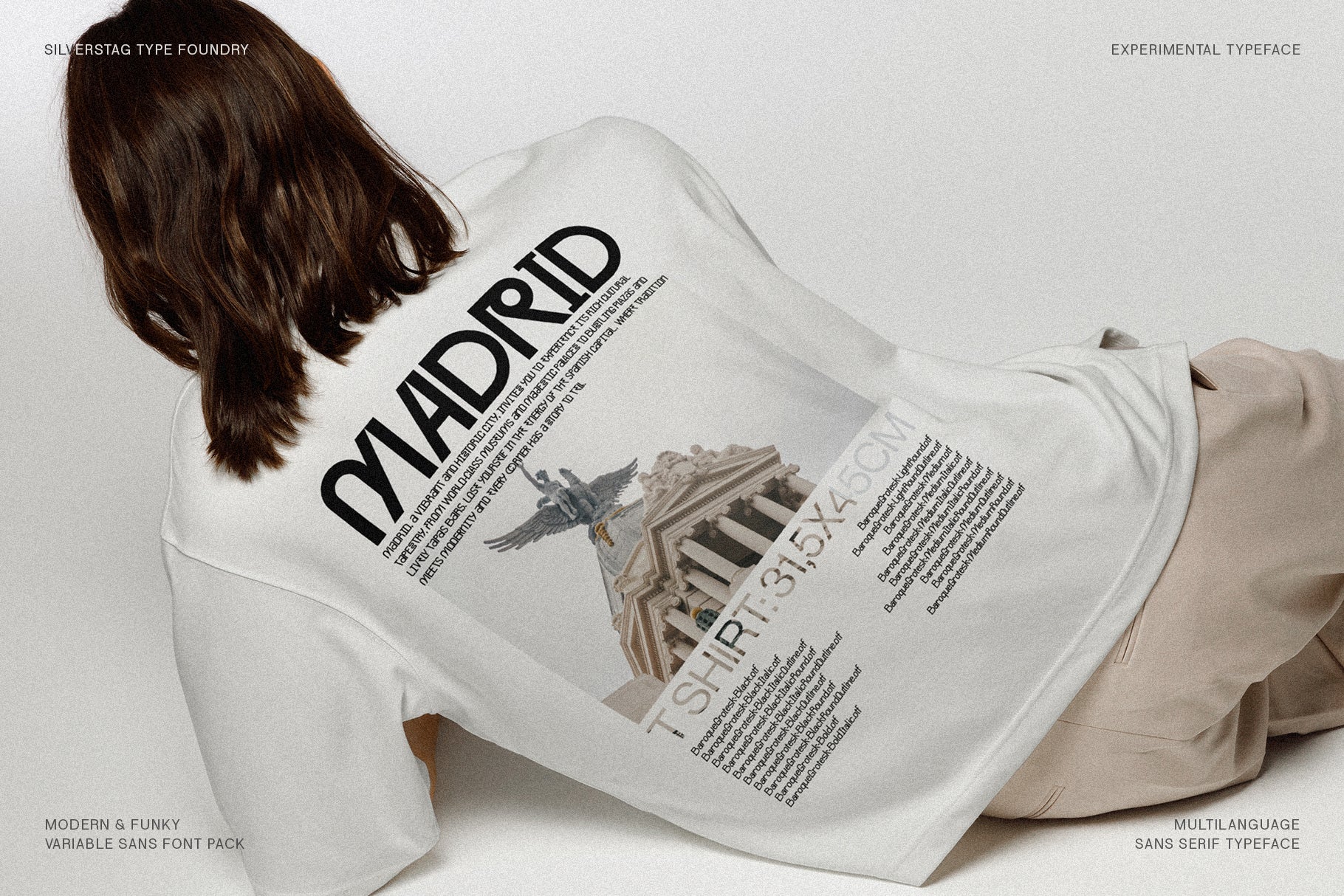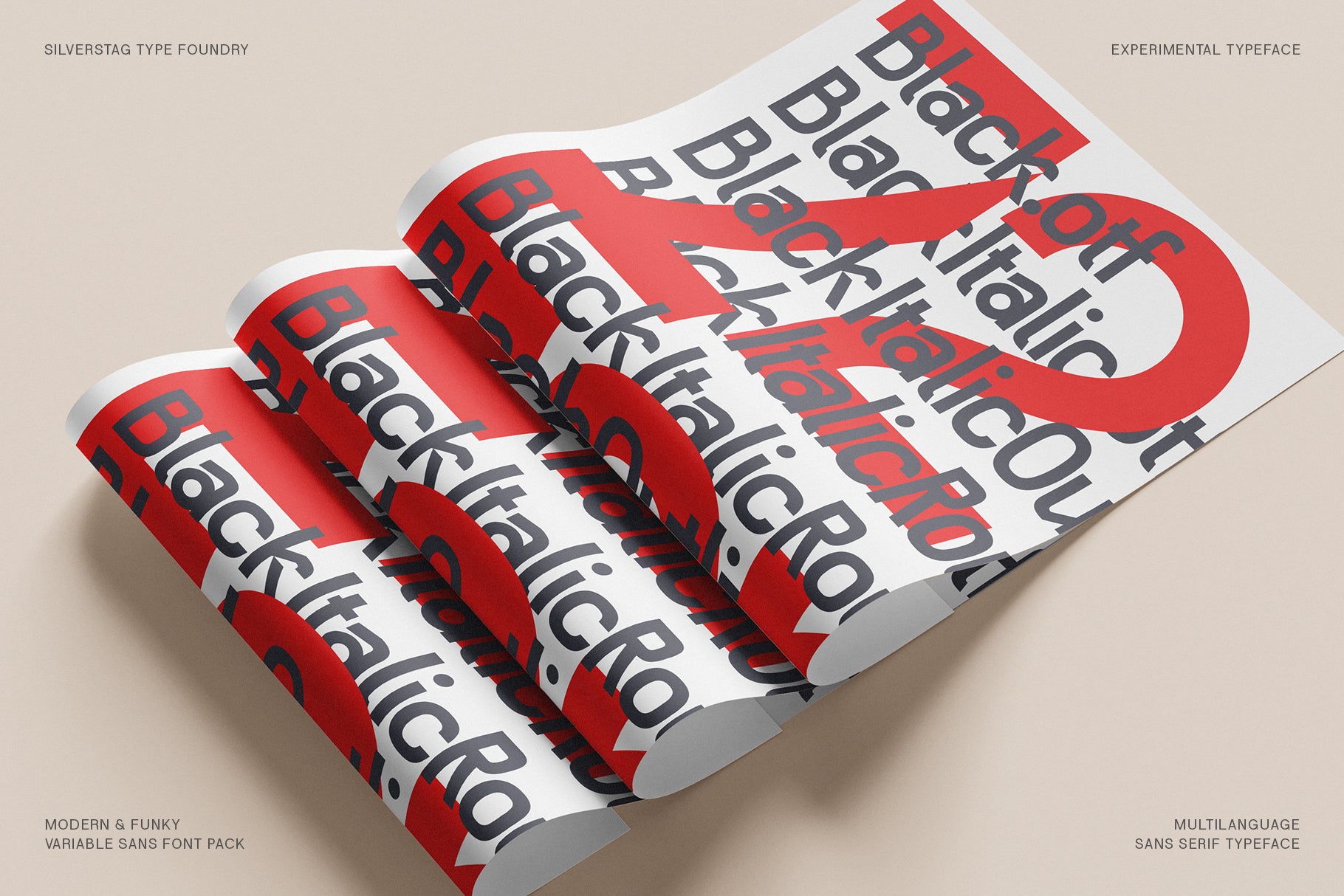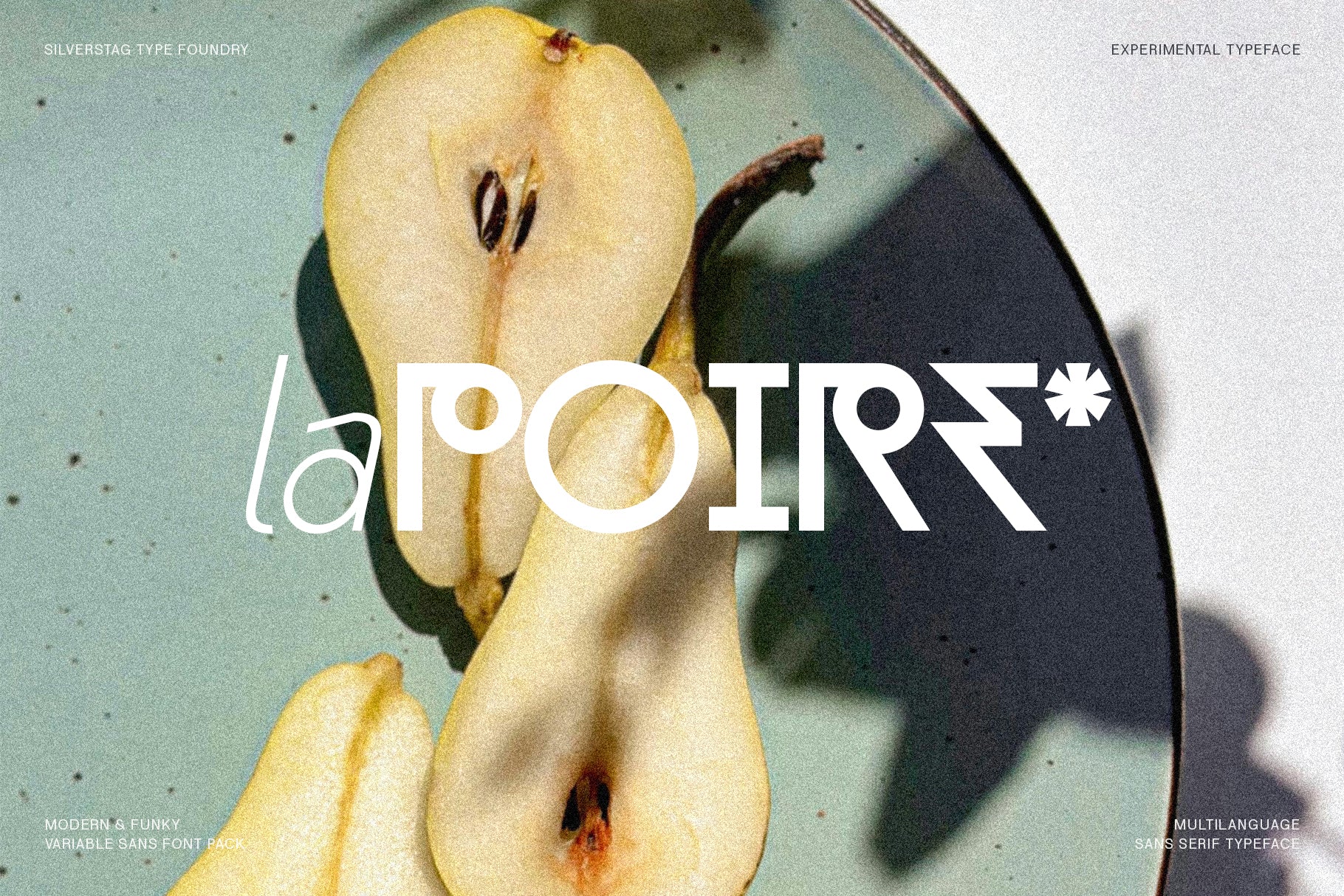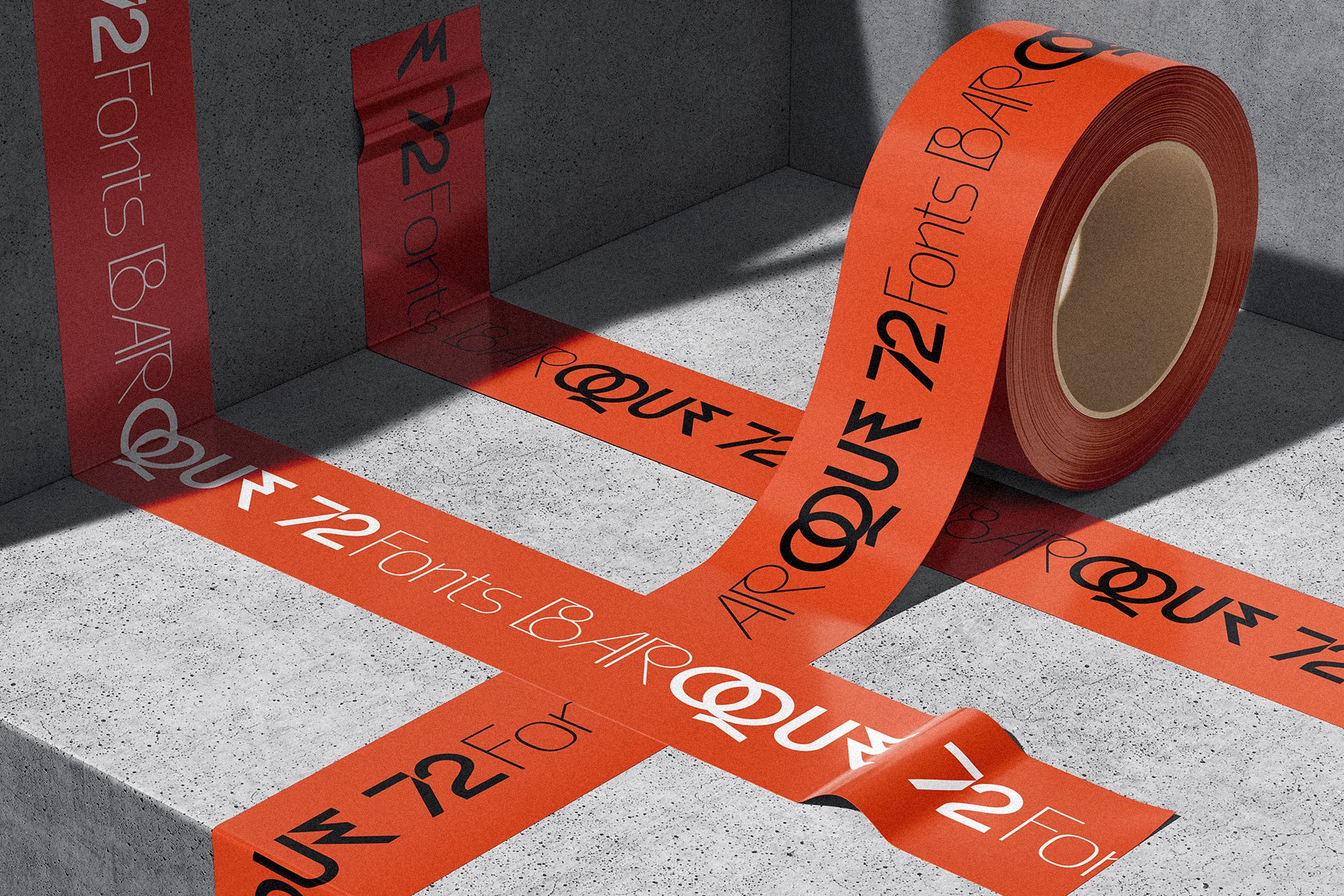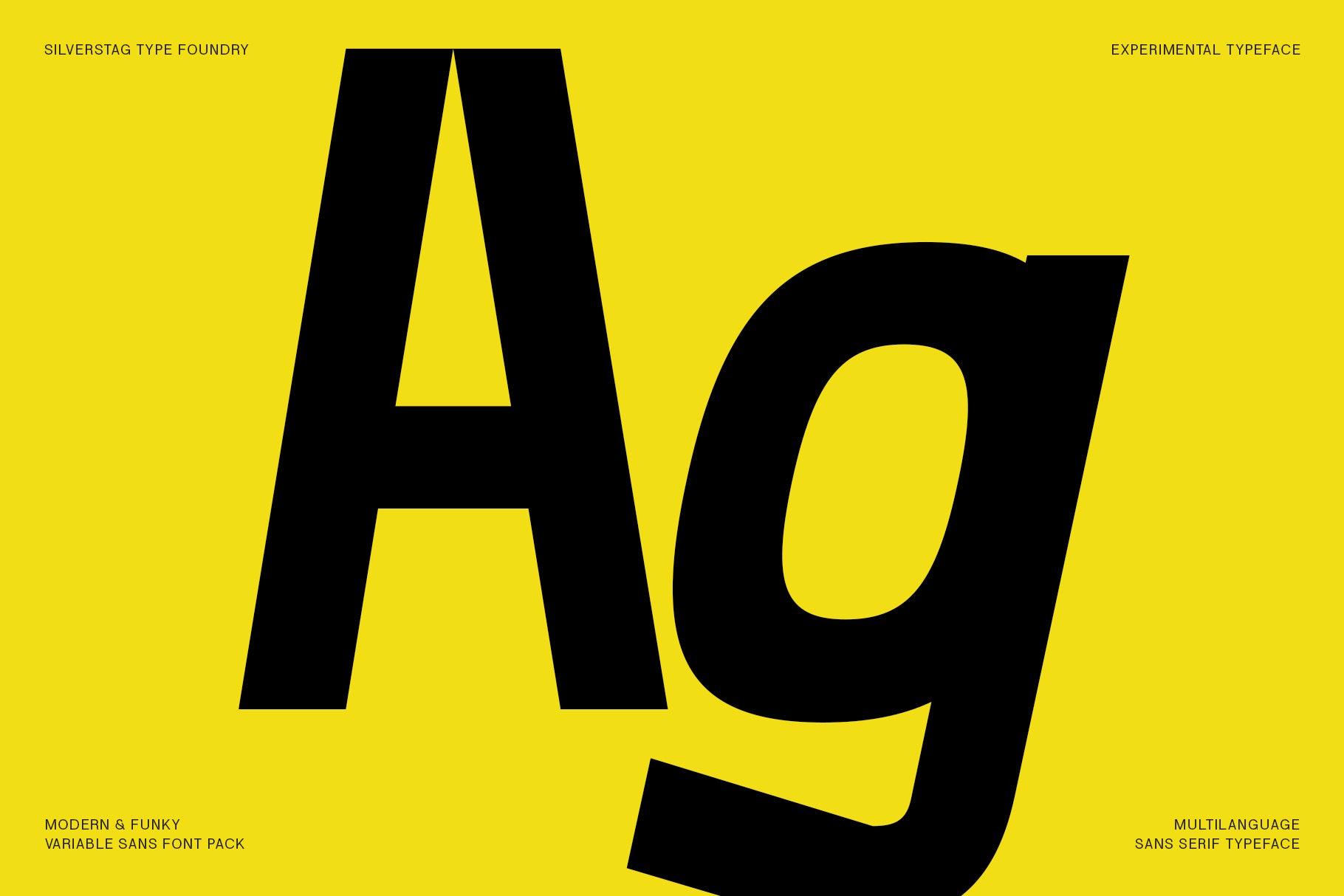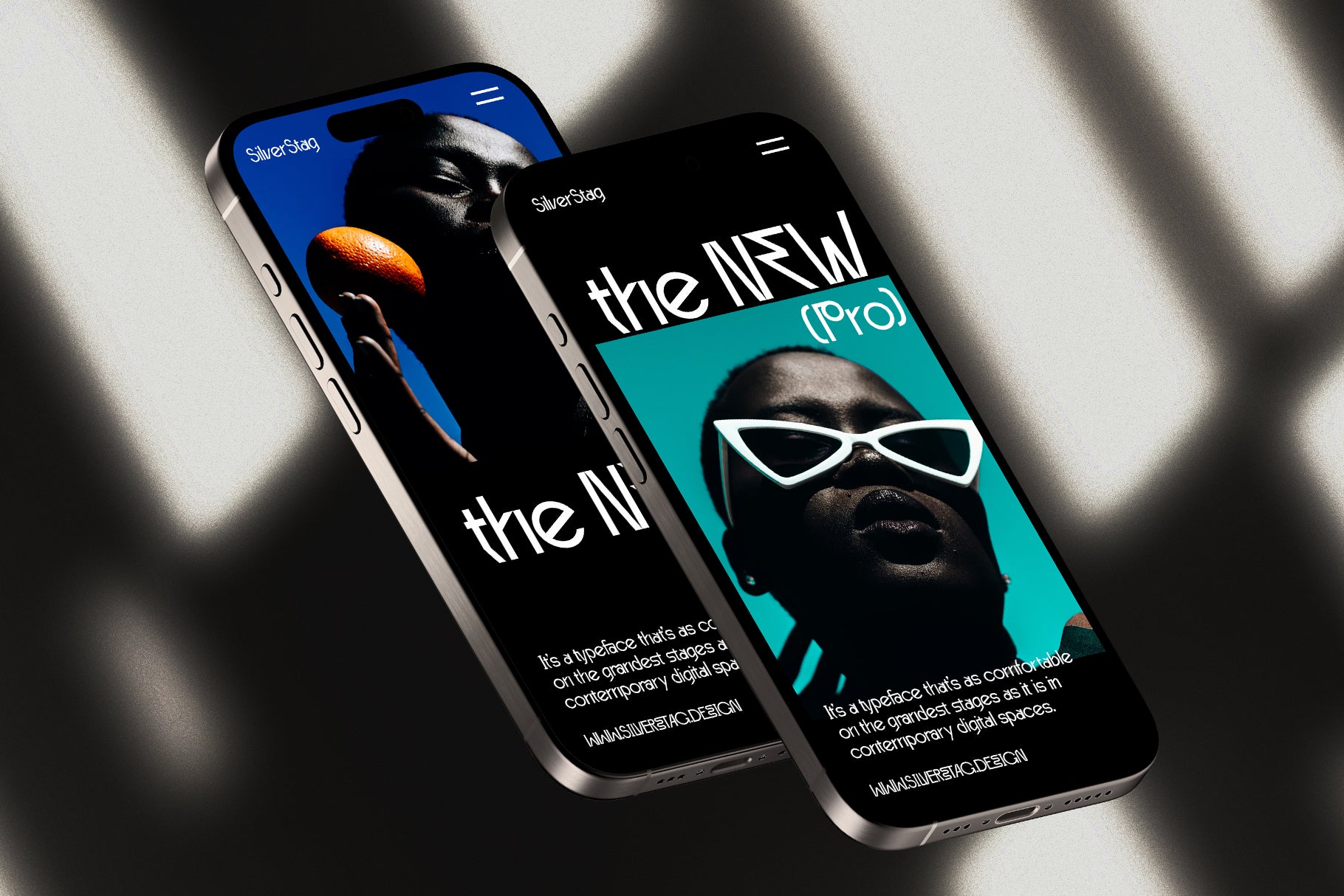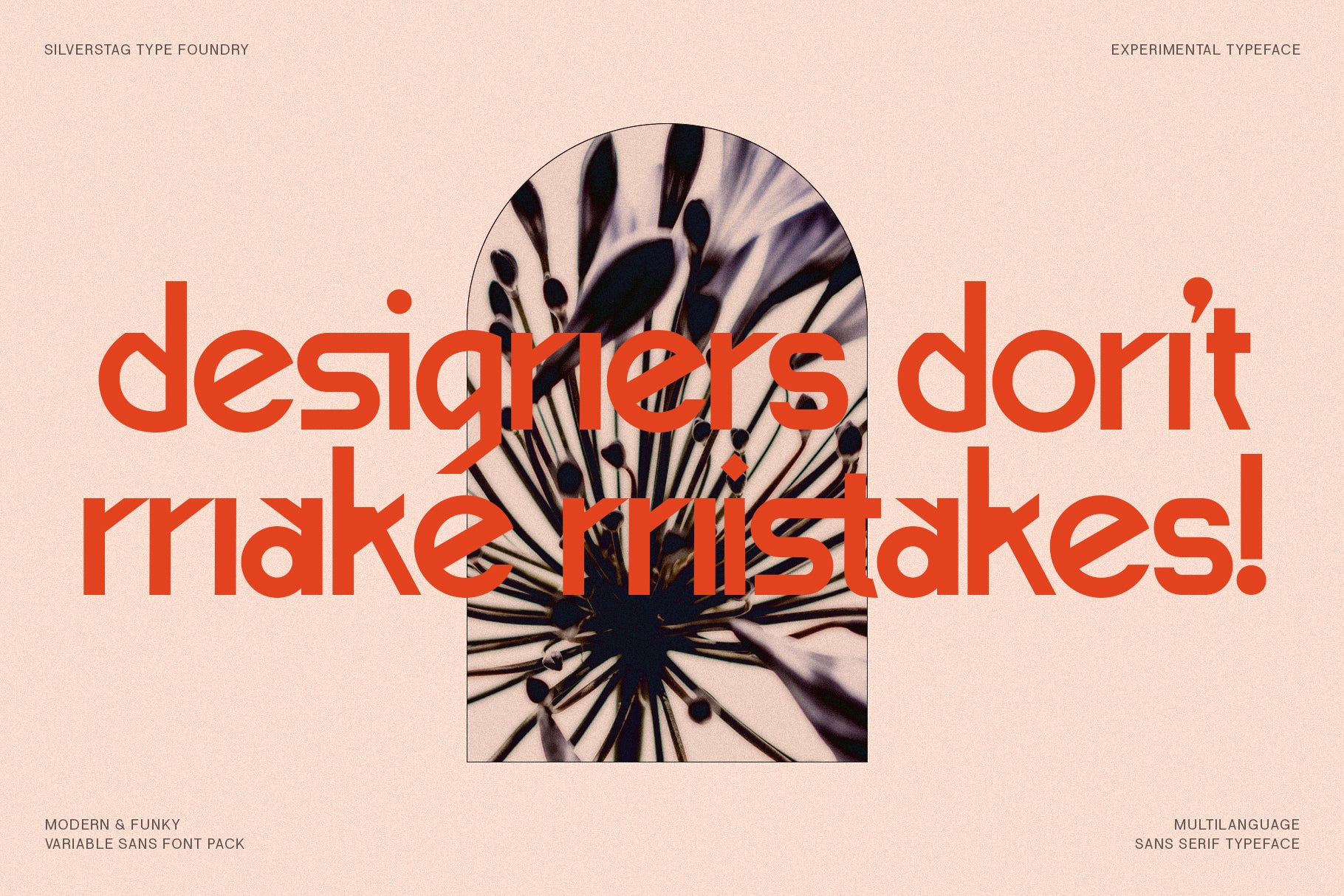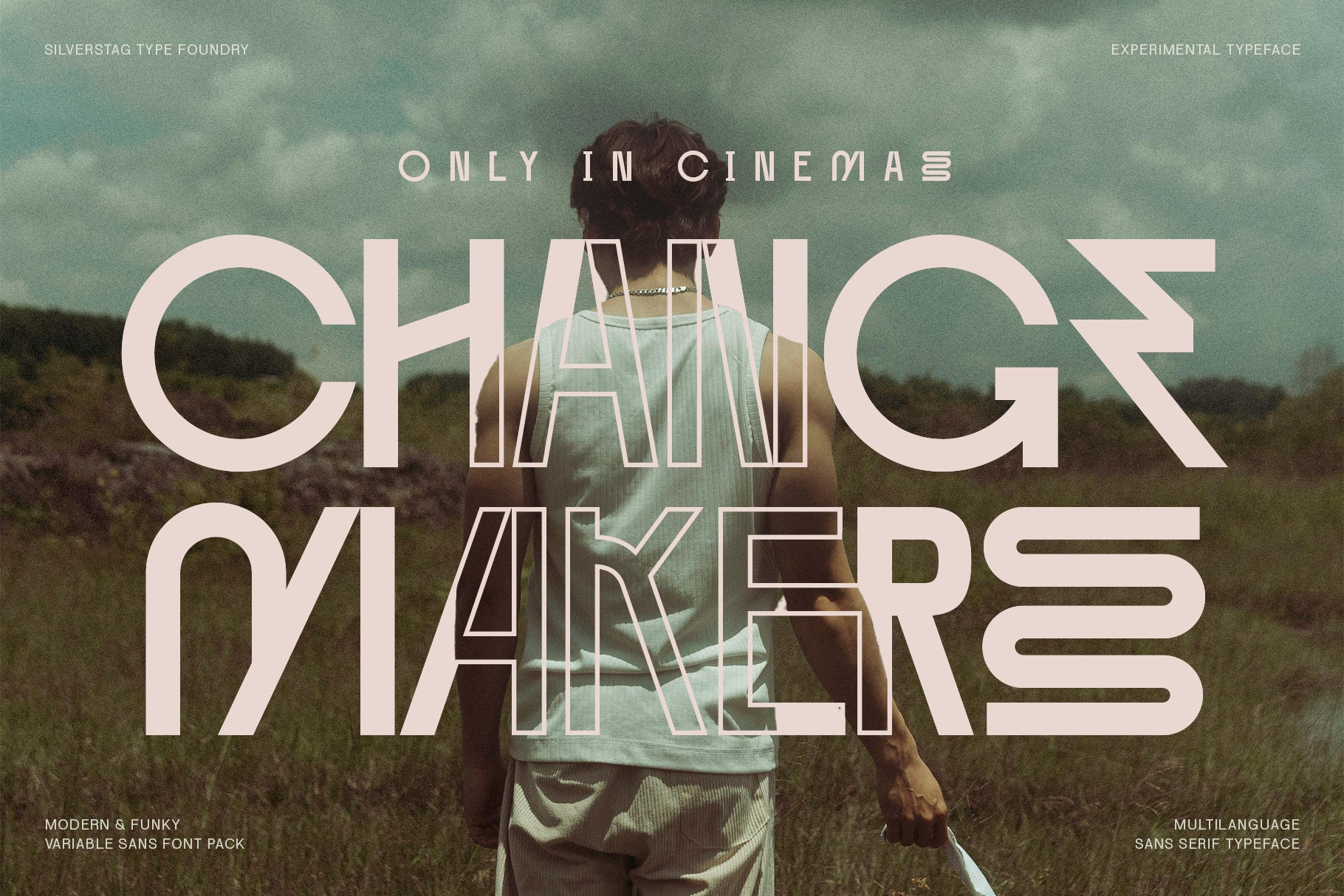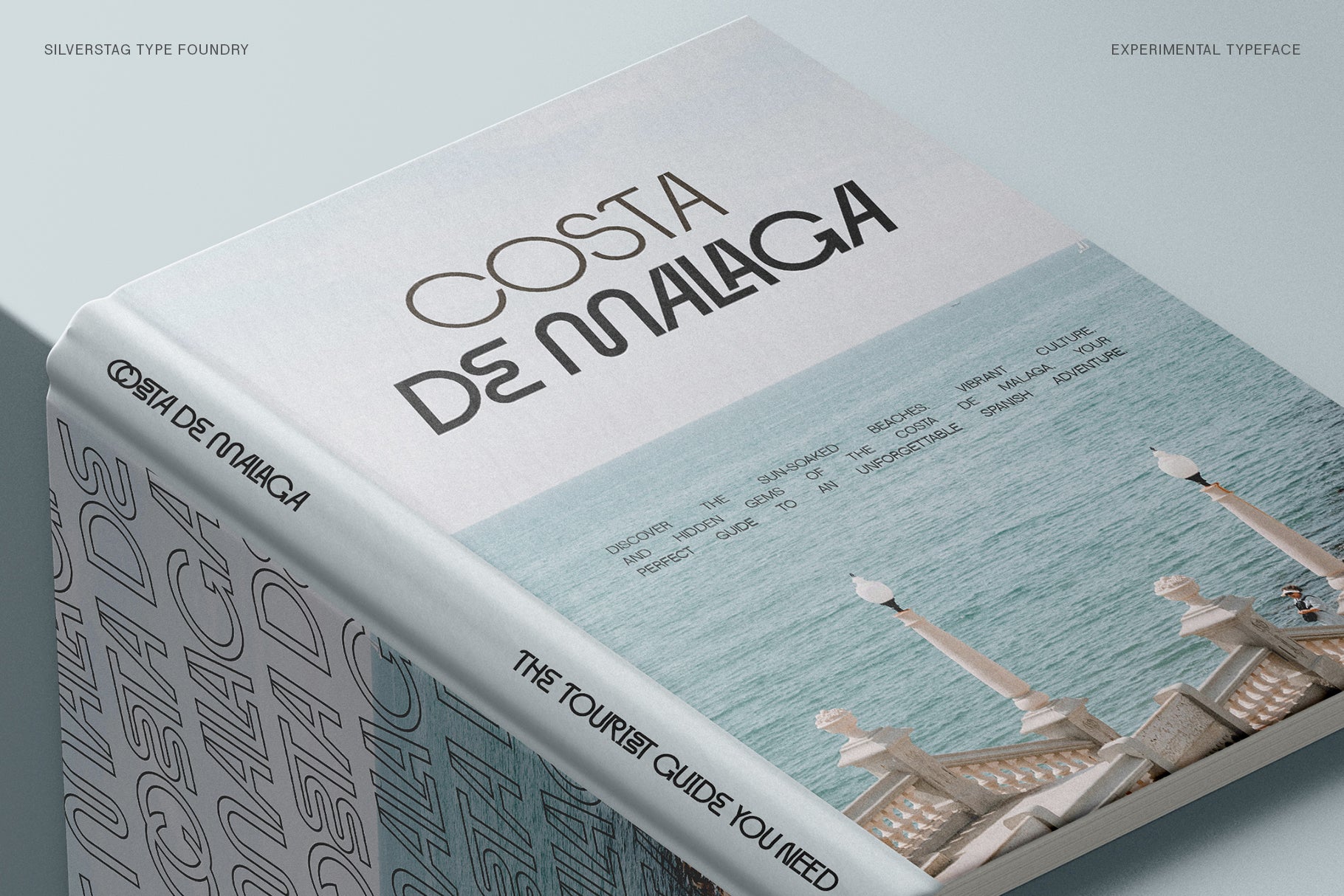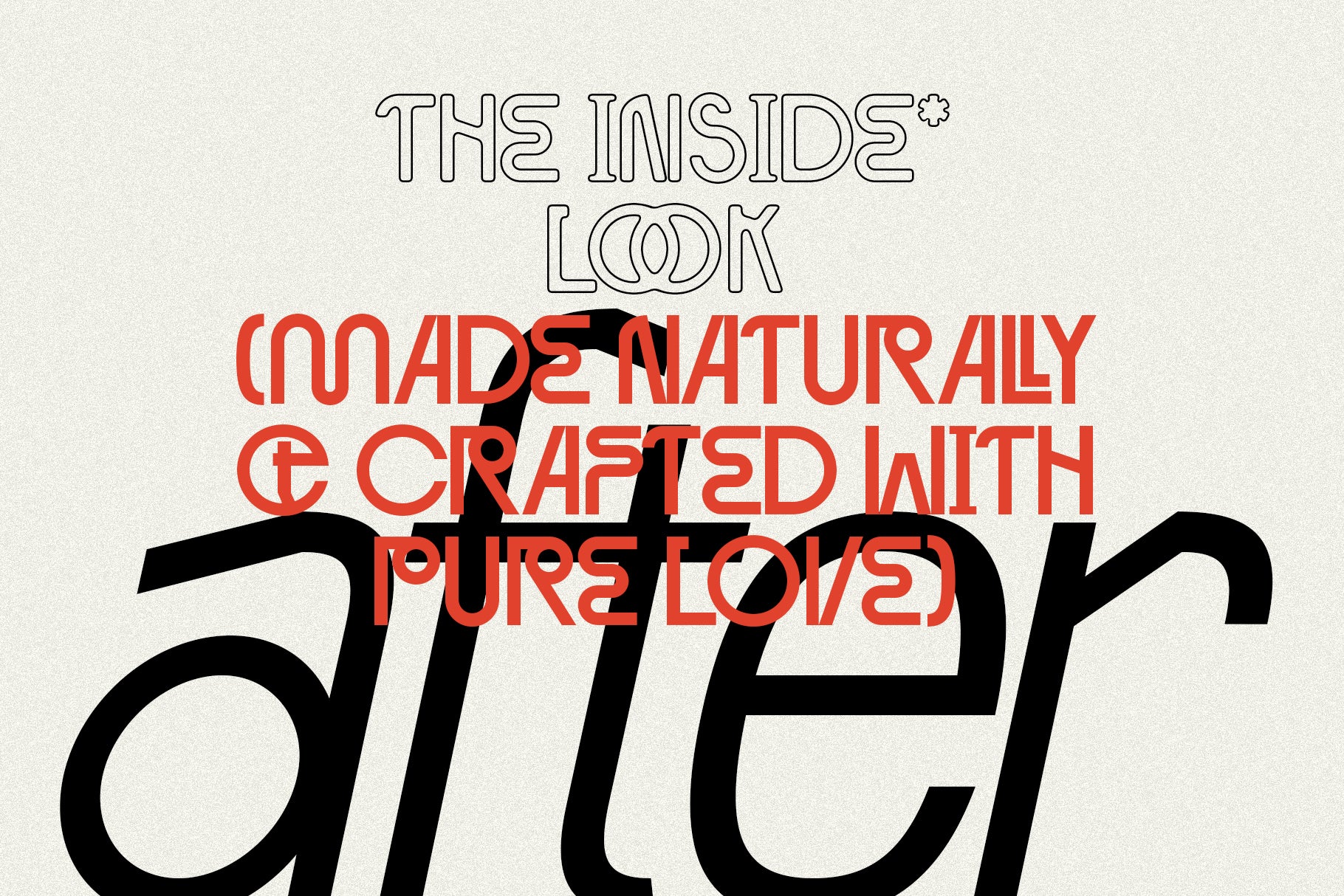
Baroque Grotesk is a sophisticated type system that fuses classical beauty with geometric clarity. With 72 fonts, including variable styles and over 200 ligatures and alternates, this typeface offers endless possibilities for expressive, modern design.
Featuring 9 weights from Thin to Black, each with 4 distinct styles—Regular, Round, Outlined, and Round Outlined—plus matching italics, Baroque Grotesk gives you the flexibility to build striking visual hierarchies across branding, editorial, packaging, and digital design.
Thoughtfully crafted, the typeface includes three stylistic sets and an extensive library of alternates that let you fine-tune your typography to match your brand’s personality or your creative vision. And with support for 92+ languages, it’s ready for global use across industries.
Baroque Grotesk’s balance of elegance and structure makes it an ideal choice for designers seeking a typeface that is both timeless and distinctly modern.